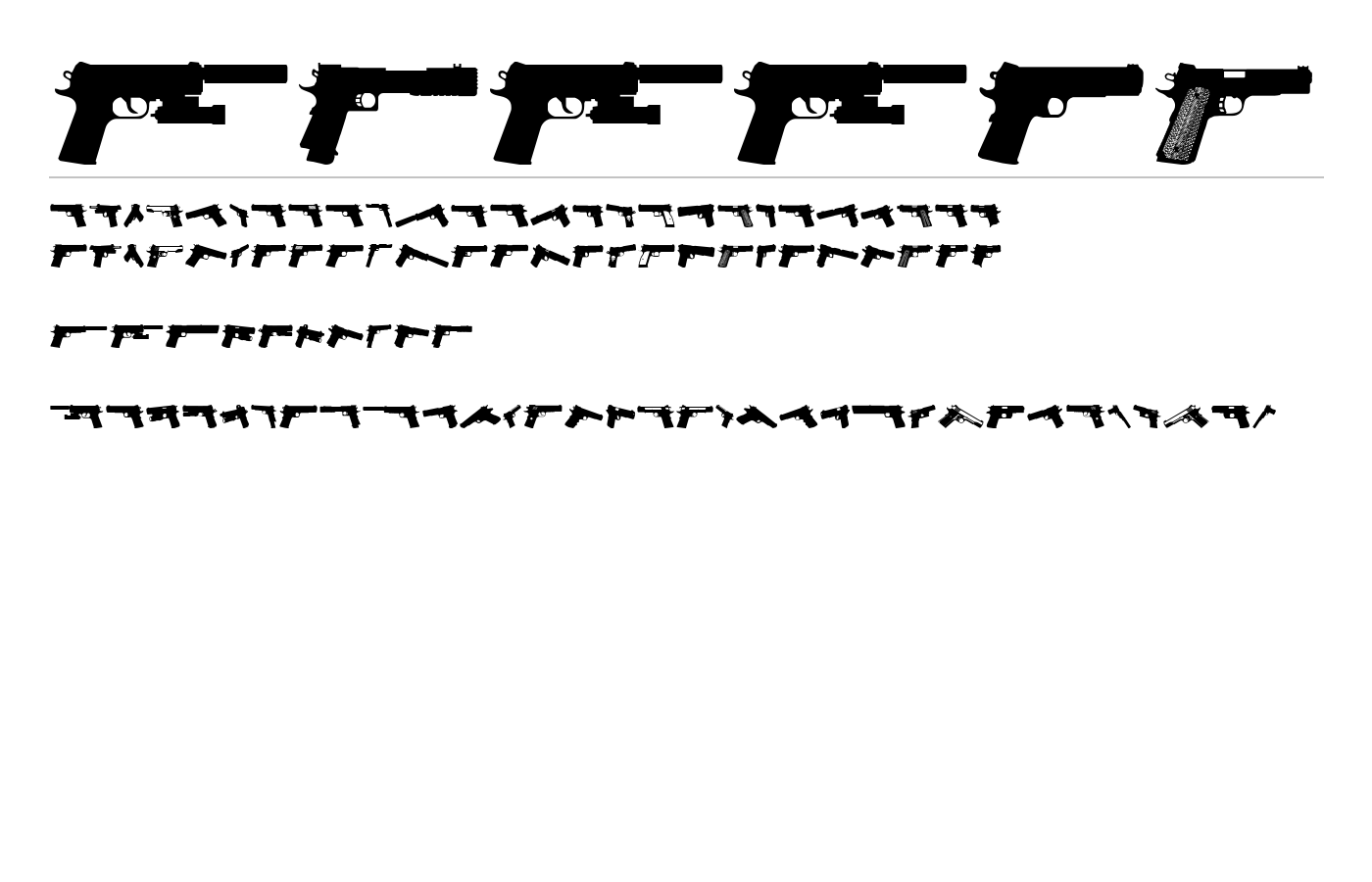
1911's Font is a novelty typeface composed entirely of stylized gun silhouettes, creating a bold and unconventional visual impact. Its strong, graphic shapes convey a dramatic and edgy personality, making it ideal for designs that seek to evoke themes of action, toughness, or rebellion. This font works best in striking headlines, posters, or branding projects where a daring and distinctive statement is needed.
1911's Font
About 1911's Font